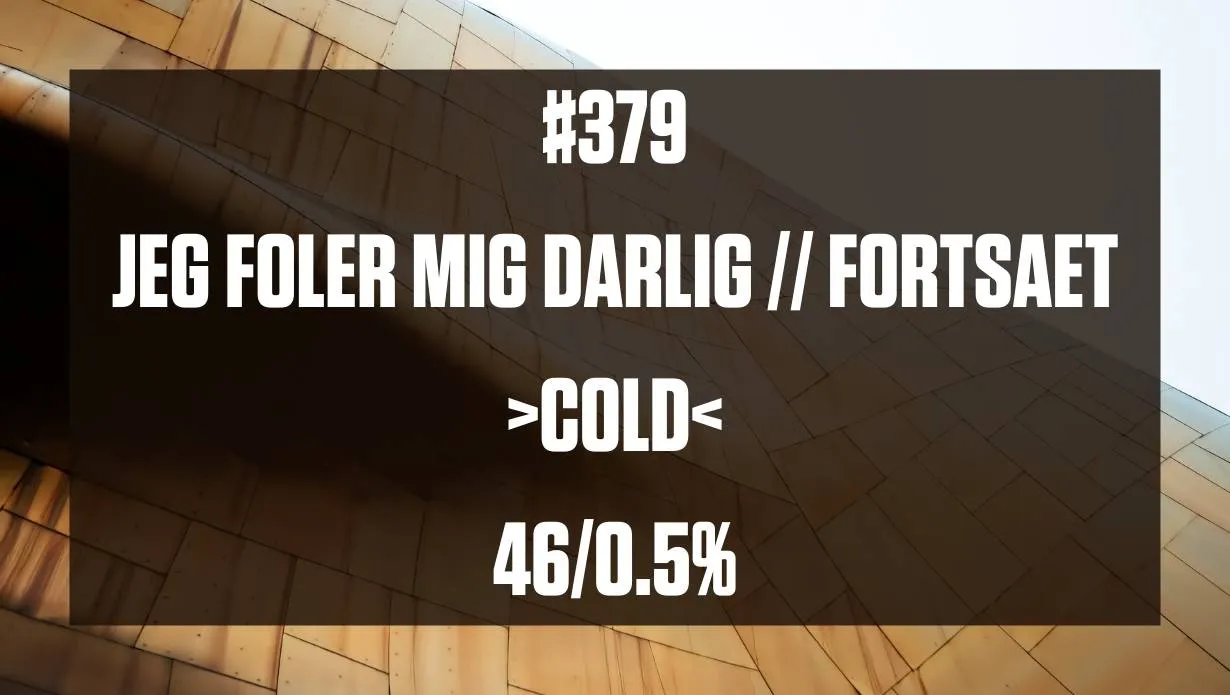
Tungsten Font is a font family designed by Ascender Corporation. The Tungsten font was created with an emphasis on legibility and clarity in mind, so it is suitable for use in small-to-medium-sized text blocks that are placed at a distance from the reader.
| Designer | Ascender Corporation |
| Category | Sans Serif |